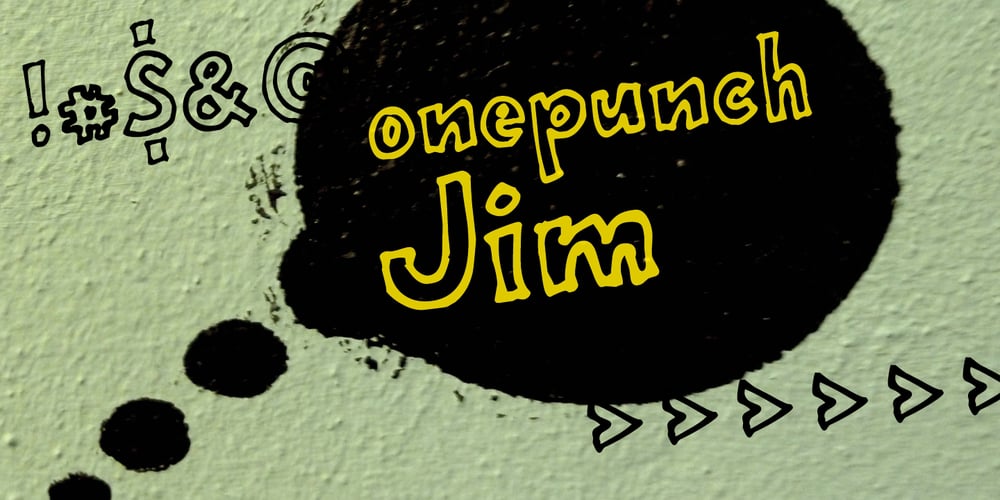
OnepunchJim Font Family was designed by Jeroen “Joebob” van der Ham and published by JOEBOB graphics. OnepunchJim contains 1 styles and family package options. OnepunchJim got its name from the way it was created; every character was made in one ‘punch’. Very suitable for kids stuff.